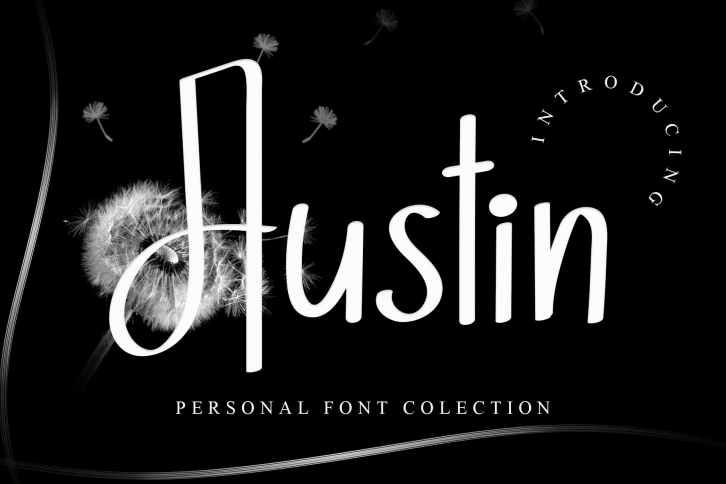
Austin is a trendy and unique font with an authentic style. It was designed by Giart Studios and it's a great choice for creative people who need such a font. It was released on February 12, 2022 and the file size is 11.14 MB. Austin will add an organic vibe to any design idea!